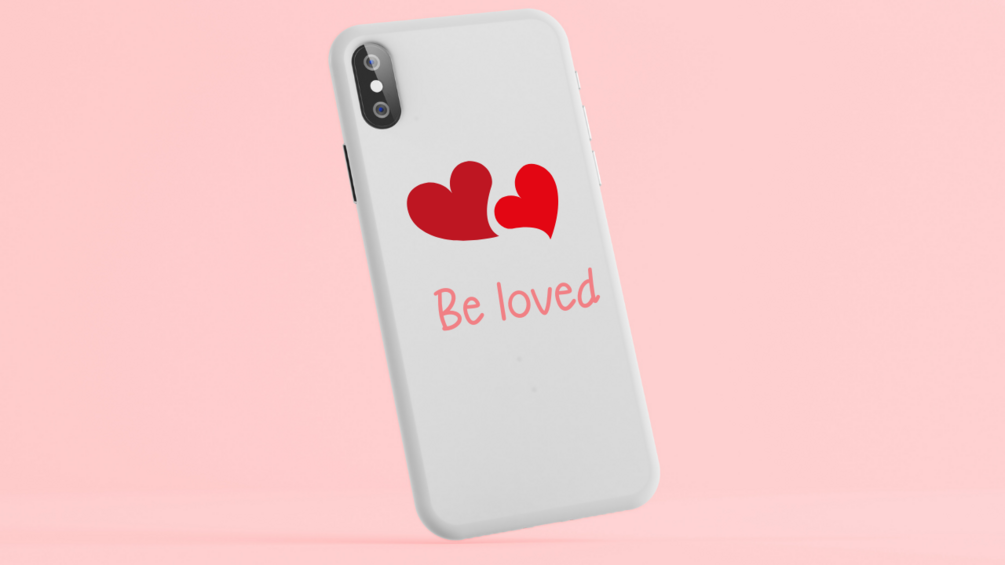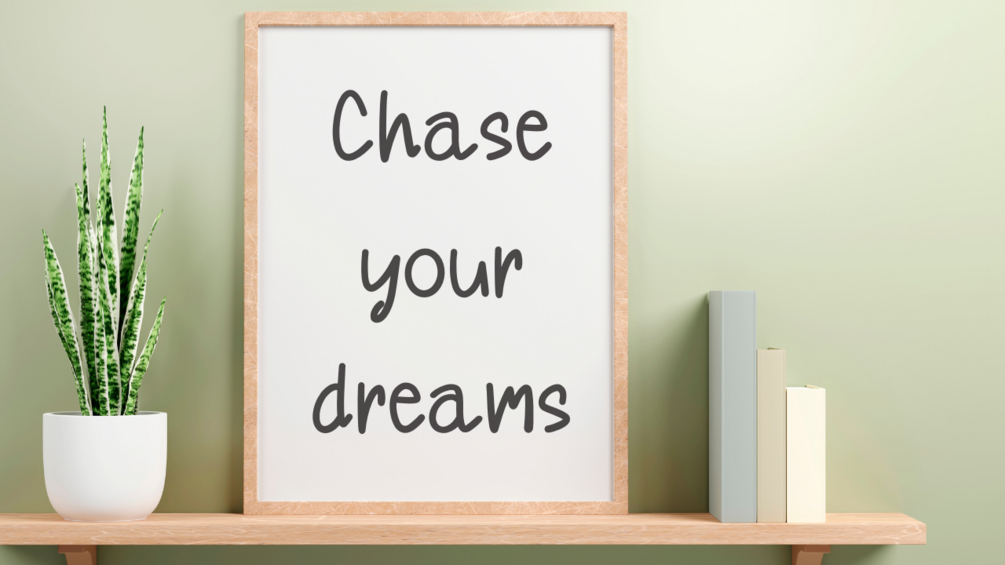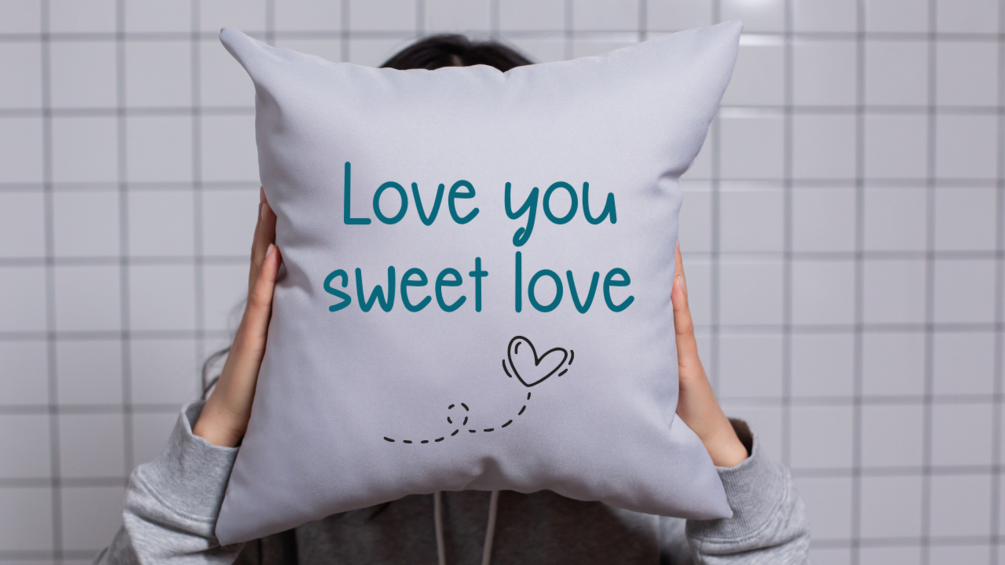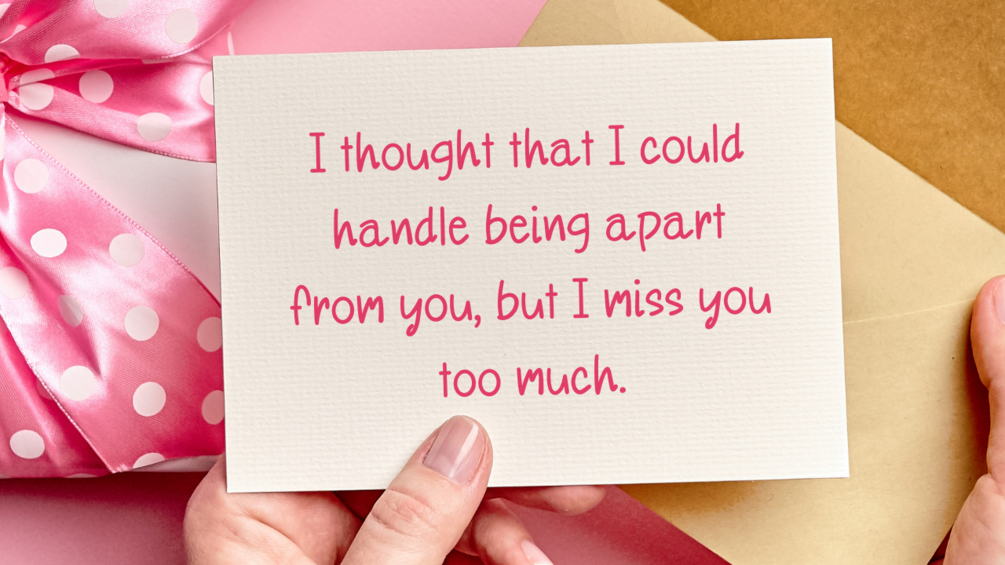
Rosie rainbow handwritten font
Rosie rainbow is a playful handwritten sans serif font. Fall in love with its incredibly distinct and timeless style and use it to create spectacular designsIt would be awesome to your fun projects,